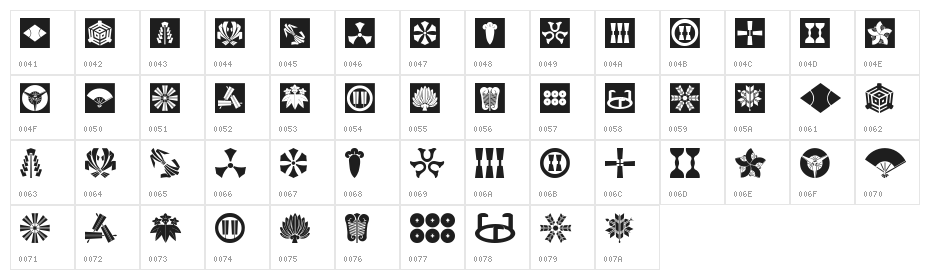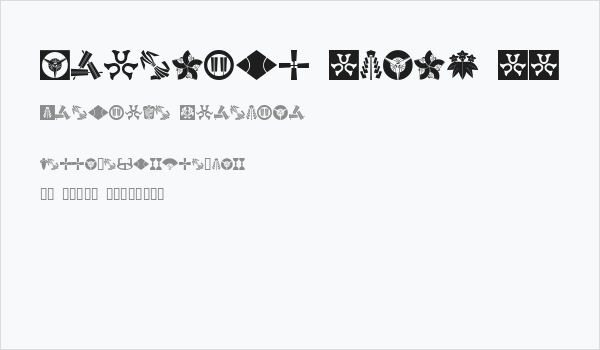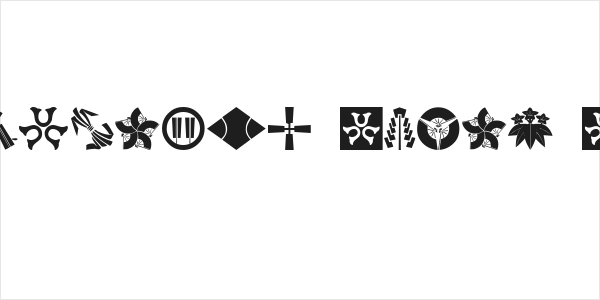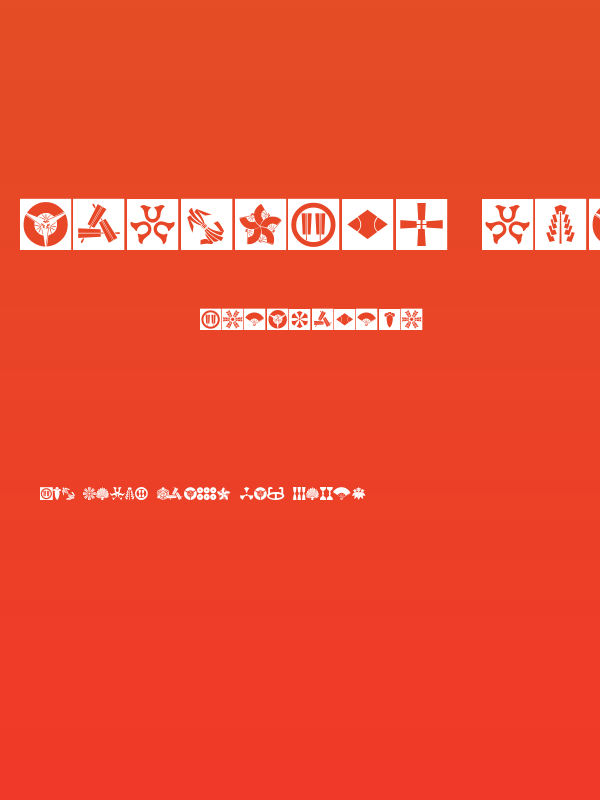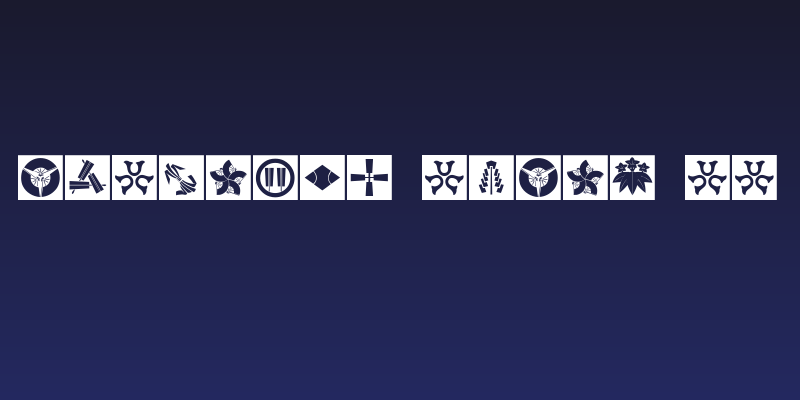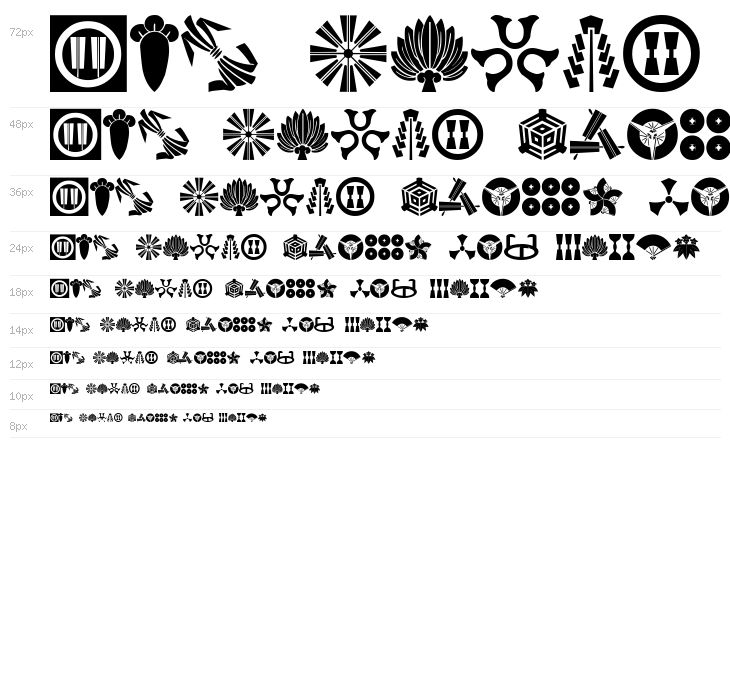
Oriental Icons II Font
Oriental Icons II Description
A decorative icon set featuring stylized, geometric, and floral motifs inspired by traditional East Asian art, presented in bold black-and-white glyphs within square frames.
| Overall Style | Decorative, Cultural, Geometric |
| Use Case | Icons, Logos, Decorative elements, Themed graphics |
| Proposed Projects | Branding, packaging, invitations, posters, cultural event materials, ornamental dividers. |